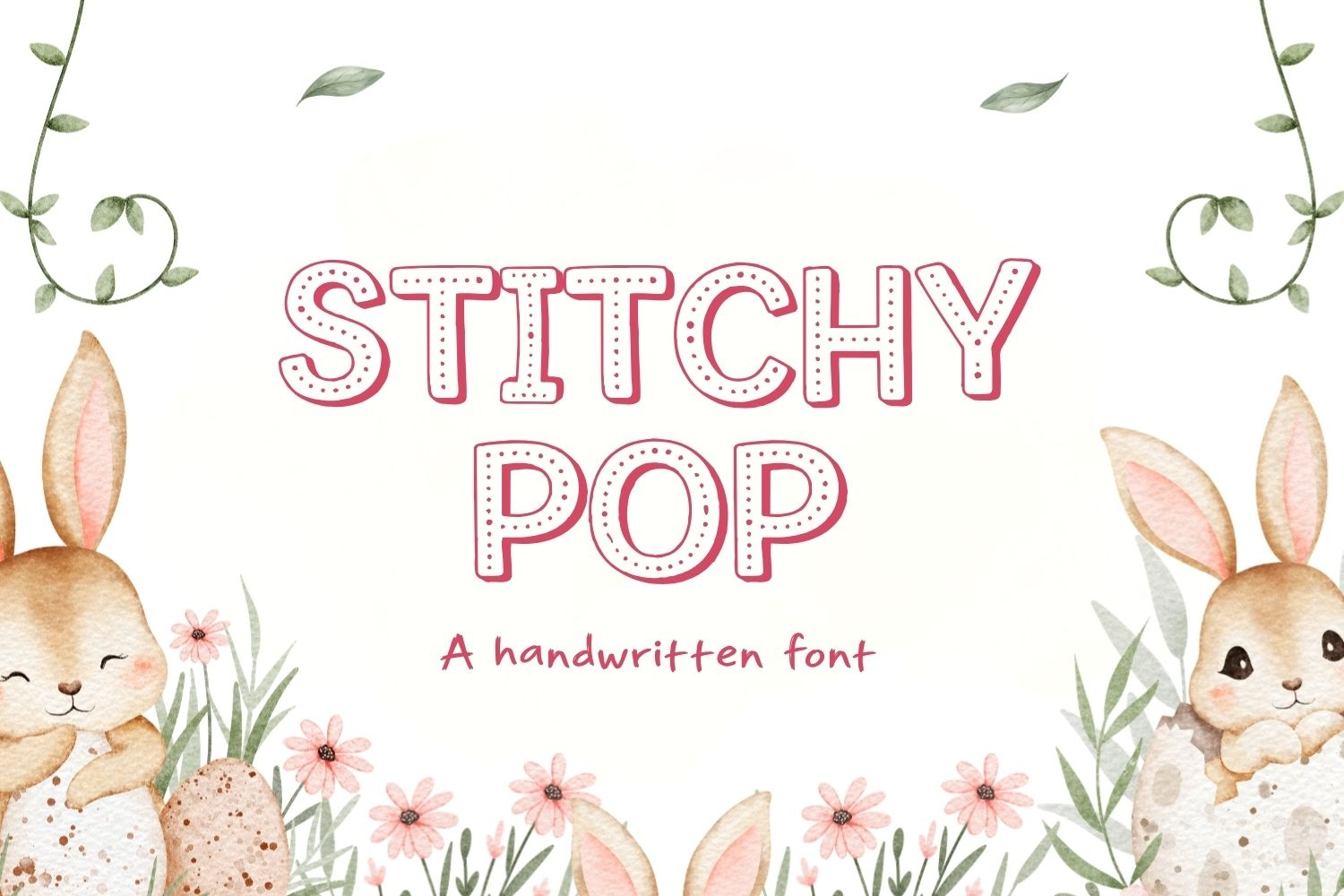
Stitchy Pop Handmade Font
Introducing Stitchy Pop Handmade Font that looks soft, fun, and easy to like. The letters feel friendly and a little playful, so every word looks nice and welcoming. It has a gentle style that makes reading feel calm and happy.
This font comes with uppercase, numbers and symbols, so you can use it in many ways. It is great for kids’ work, school pages, story books, cards, posters, and simple designs. If you want your words to look sweet, clear, and full of life, this font is a good choice.
• Big Letters (Uppercase)
• Numbers & Symbols
Here's a sneak peek at the characters supported:
• All the letters from A-Z (uppercase)
• All the numbers from 0-9
• All these special characters - !#$%&()*+,-./:;<=>?@[]^_{}~ ©­™